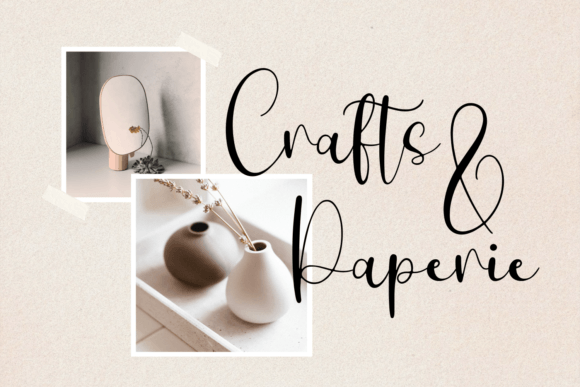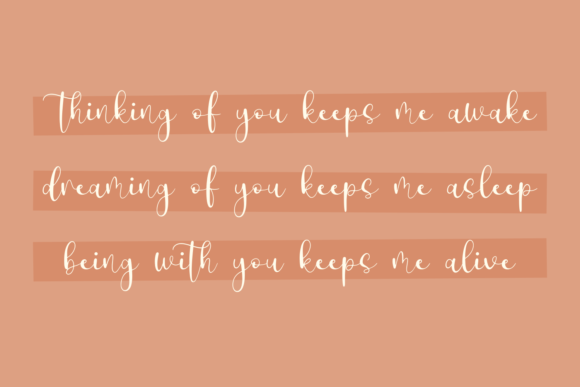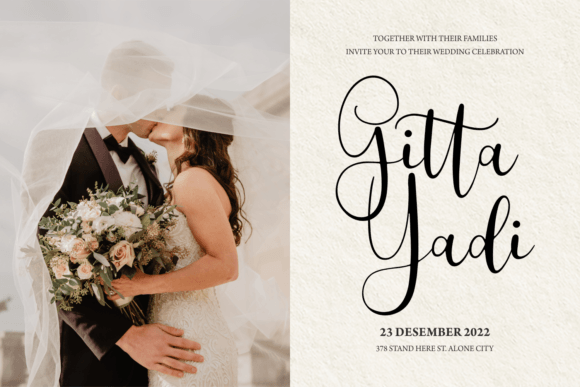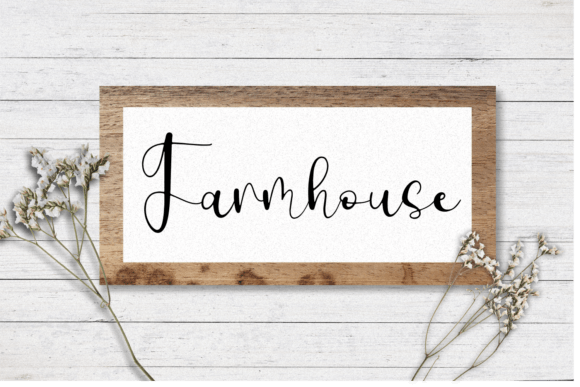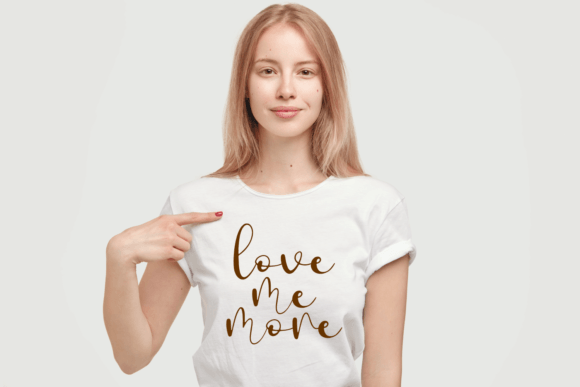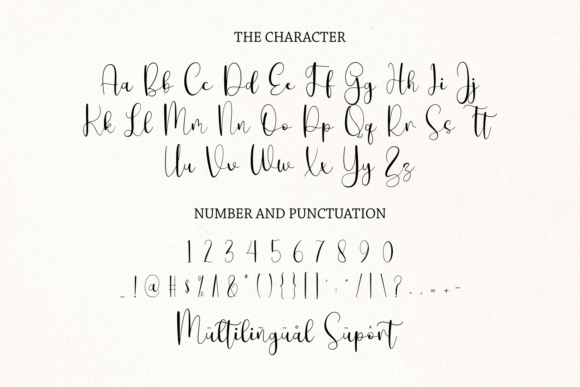
The Elusive Perfect Font: My Journey with Ditta Misalle
A First Impression: What I Love About Ditta Misalle
Ditta Misalle is a flowing handwritten script font that exudes an elegant touch. Here are a few things that immediately won me over:
- ✨ Incredibly distinct and timeless style
- ✅ Elegant, flowing lines that add a touch of sophistication to any design
- 💫 Perfect for a wide range of projects, from branding and advertising to packaging and more
While Ditta Misalle has stolen my heart, it’s not without its quirks. Here are a few things to consider:
- ⚠️ Some users may find the font a tad too ornate for very small sizes or body text
- 🤔 Limited availability of certain characters or glyphs, which may require some creative problem-solving
The Story Behind Ditta Misalle: Designer Inspiration
Ditta Misalle was crafted with love and care by a talented font designer. Although the designer’s story is shrouded in mystery, it’s clear that Ditta Misalle was created with a passion for elegance and sophistication. Whether or not the designer drew inspiration from traditional calligraphy, it’s evident that Ditta Misalle has a timeless quality that transcends trends.
- Q: Is Ditta Misalle suitable for body text?
- A: While Ditta Misalle is stunning, it’s best suited for headlines, titles, and short paragraphs. For longer body text, a more traditional font might be more readable.